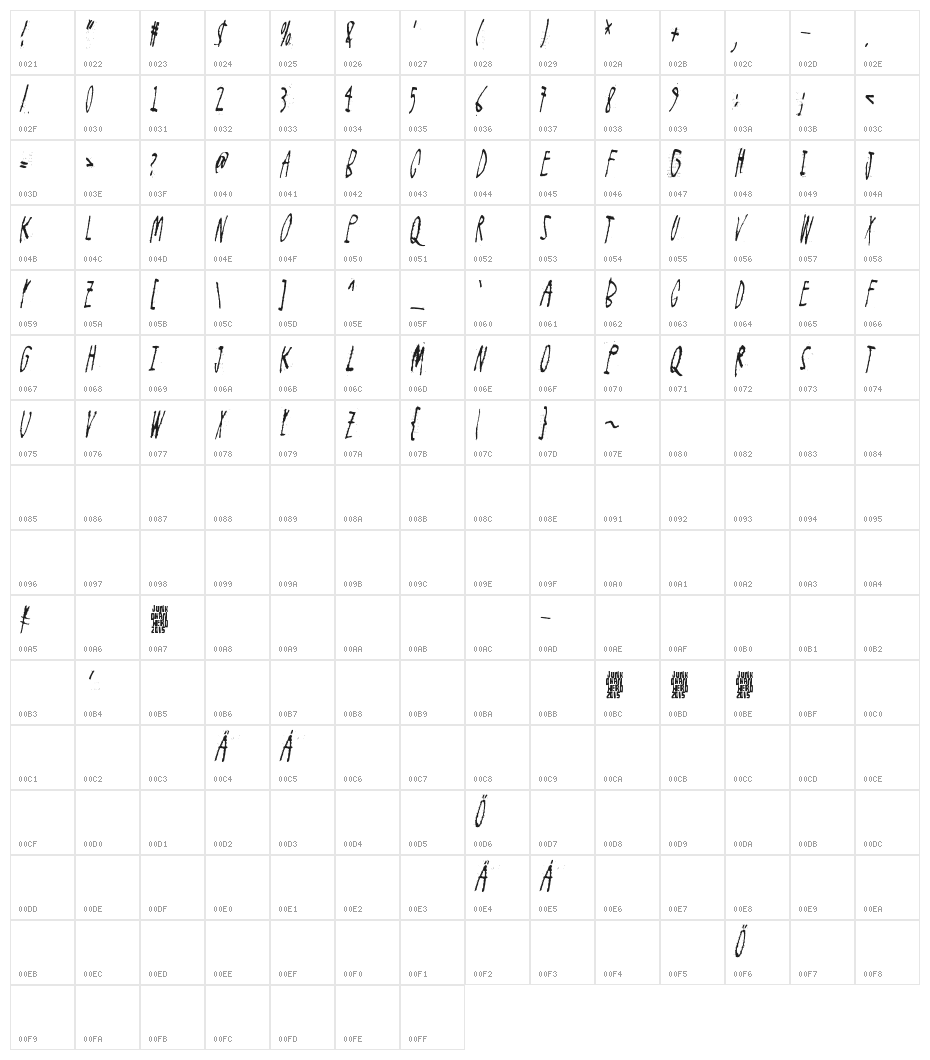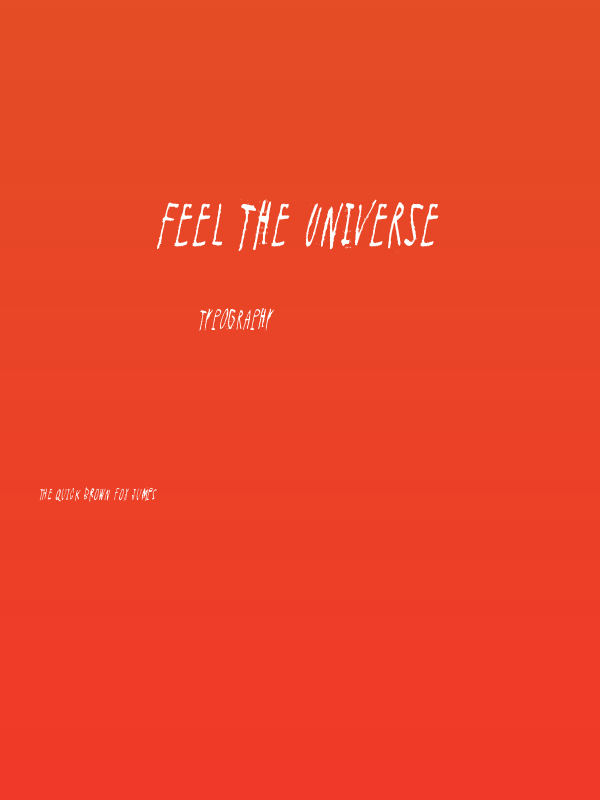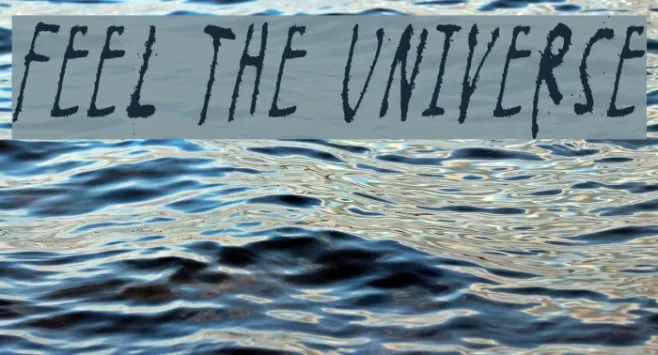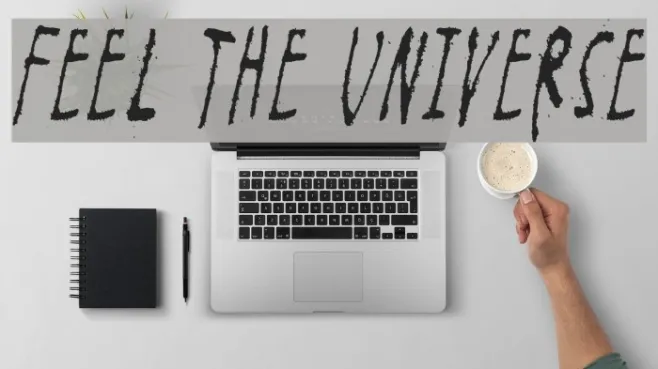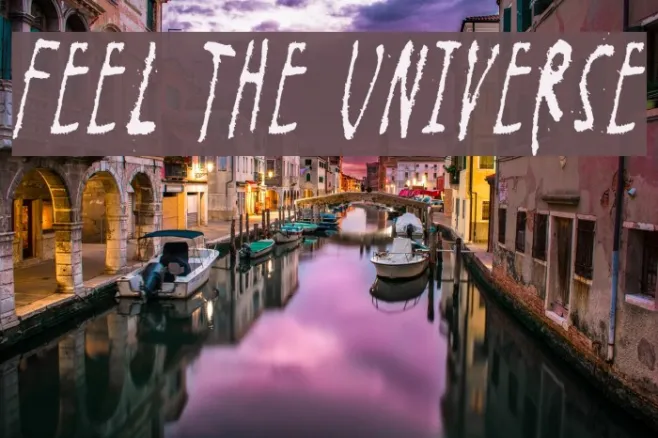
Feel the universe Font
Feel the universe Description
This font exudes a raw, expressive energy with its hand-drawn, brush-like strokes. Each character appears to have been crafted with a sense of urgency and spontaneity, giving it a dynamic and edgy feel. The irregularities in line thickness and the slight slant of the letters contribute to its informal and artistic style. The uppercase and lowercase letters maintain a consistent height, while the numbers and special characters follow the same expressive design. This font is perfect for projects that require a bold, artistic statement, such as album covers, posters, or creative branding.